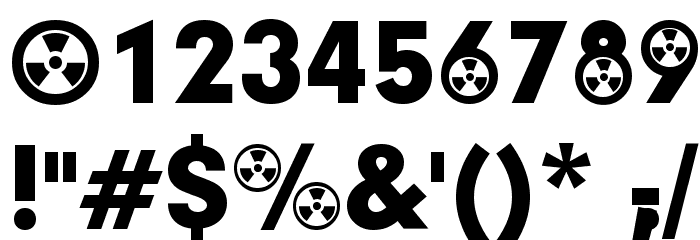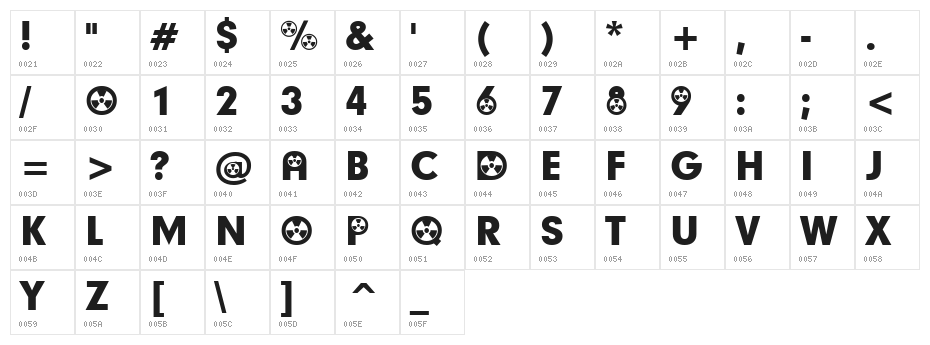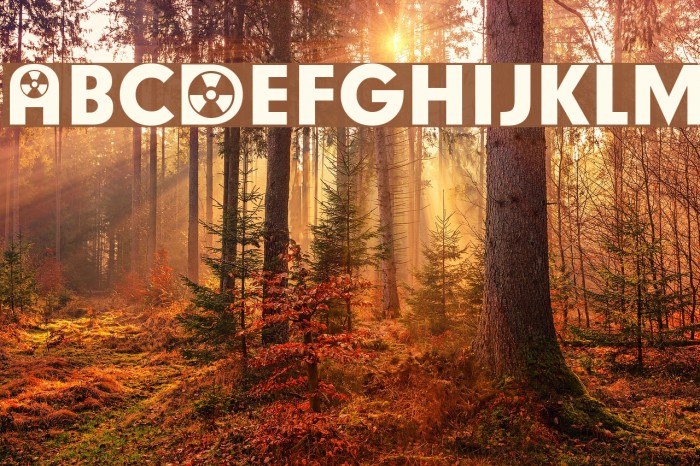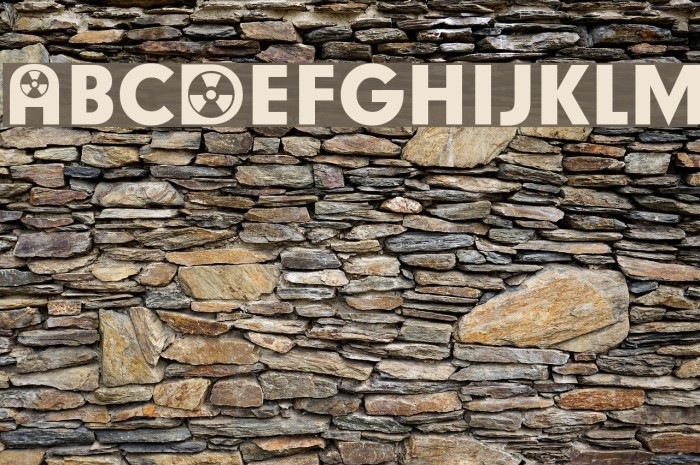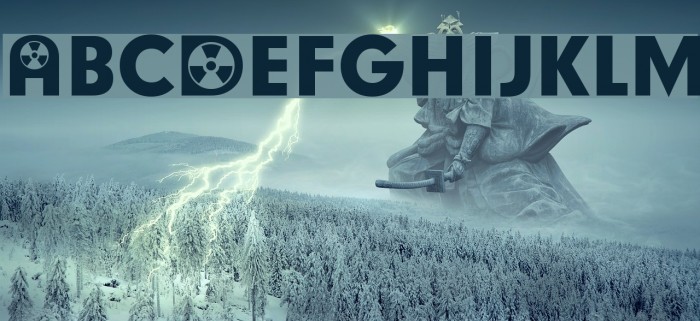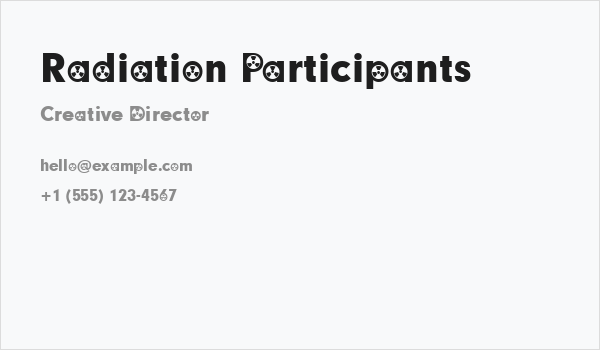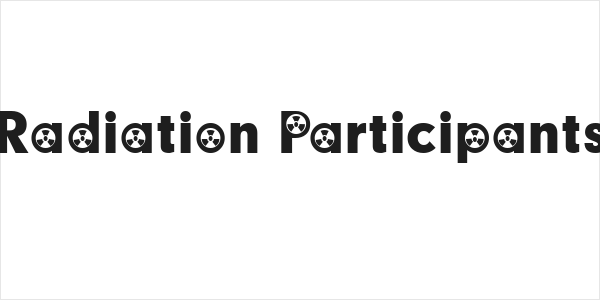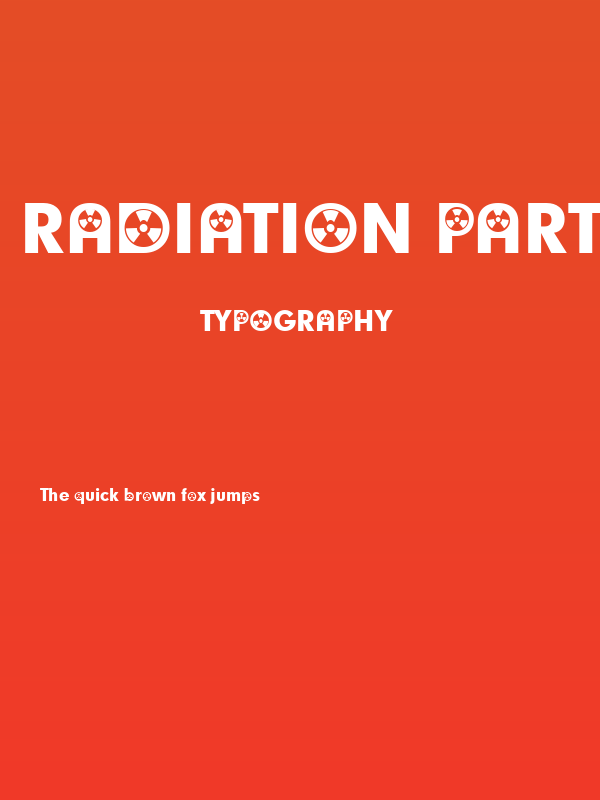
Radiation Participants Font
Radiation Participants Description
This bold and striking font features a unique design element where certain characters incorporate a radiation symbol, adding a thematic twist to the otherwise solid and geometric letterforms. The uppercase and lowercase letters maintain a consistent weight and width, creating a cohesive look. The numbers and special characters follow the same bold style, ensuring uniformity across all glyphs. The font's distinctiveness lies in its ability to convey a sense of caution or hazard, making it ideal for projects that require an impactful visual statement.
| Proposed Projects | Ideal for warning signs, themed posters, video game graphics, or any project requiring a bold, cautionary aesthetic. |